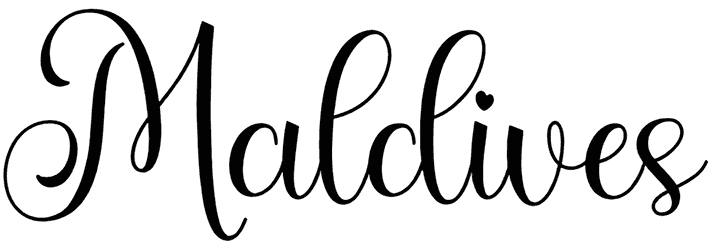
Maldives Font
To make your artwork special, you call for a font that is different from the previous ones, and that’s why the Maldives appeals to the eyes. This Valentine font will inspire you with a sense of love and excitement, which is useful for designing Valentine’s packaging, postcards, greeting cards, or wrapping paper.